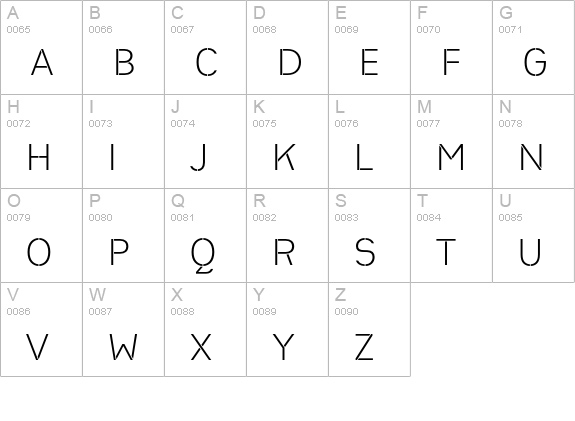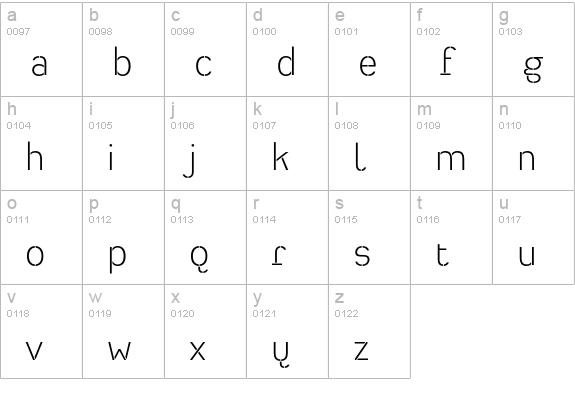
Heimat Stencil Light Font Details
Heimat Stencil Light is a refined, elegant variant in the Heimat typeface family \xE2\x80\x94 well suited to elegant body text, refined sub-headings, and luxury branding.
Heimat Stencil Light font is a modern and stylish typeface that exudes elegance and sophistication. With its clean lines and geometric shapes, this font is perfect for creating eye-catching designs that demand attention. The stencil effect adds a unique touch, giving your projects a contemporary edge. Best of all, Heimat Stencil Light font is available for free download at FontsMarket.com. Whether you're working on branding, editorial design, or any other creative project, this versatile font is sure to make a bold statement. Embrace the modern simplicity of Heimat Stencil Light font and take your designs to the next level. Download it today and let your creativity shine.